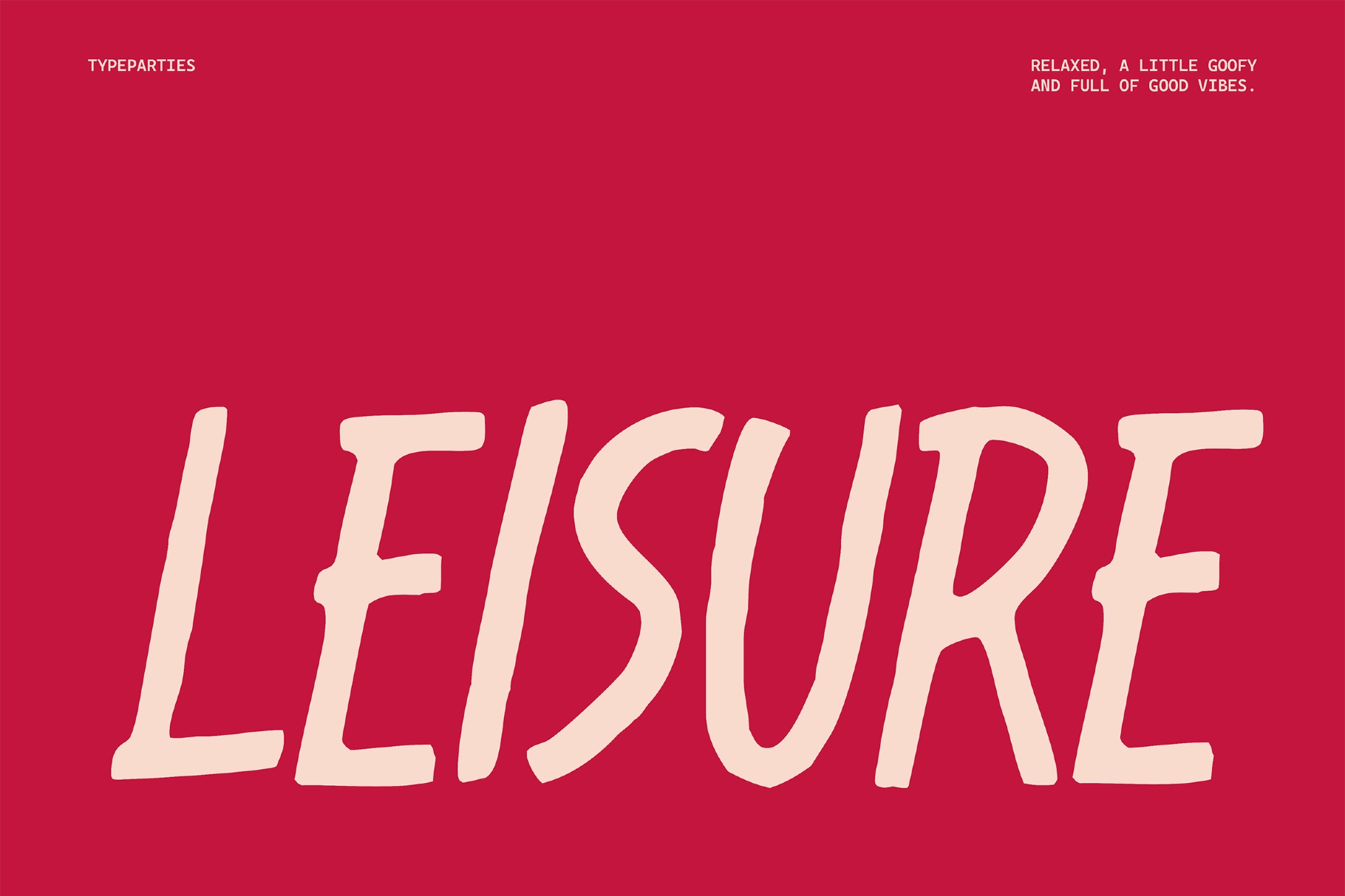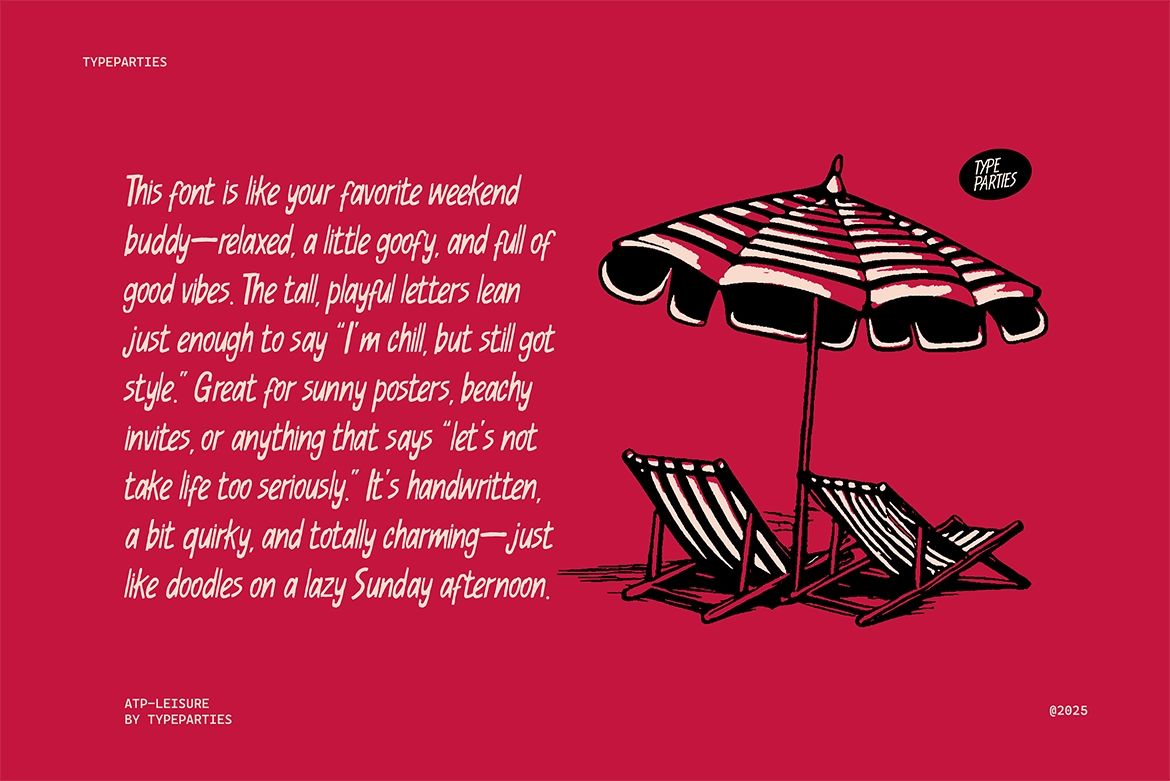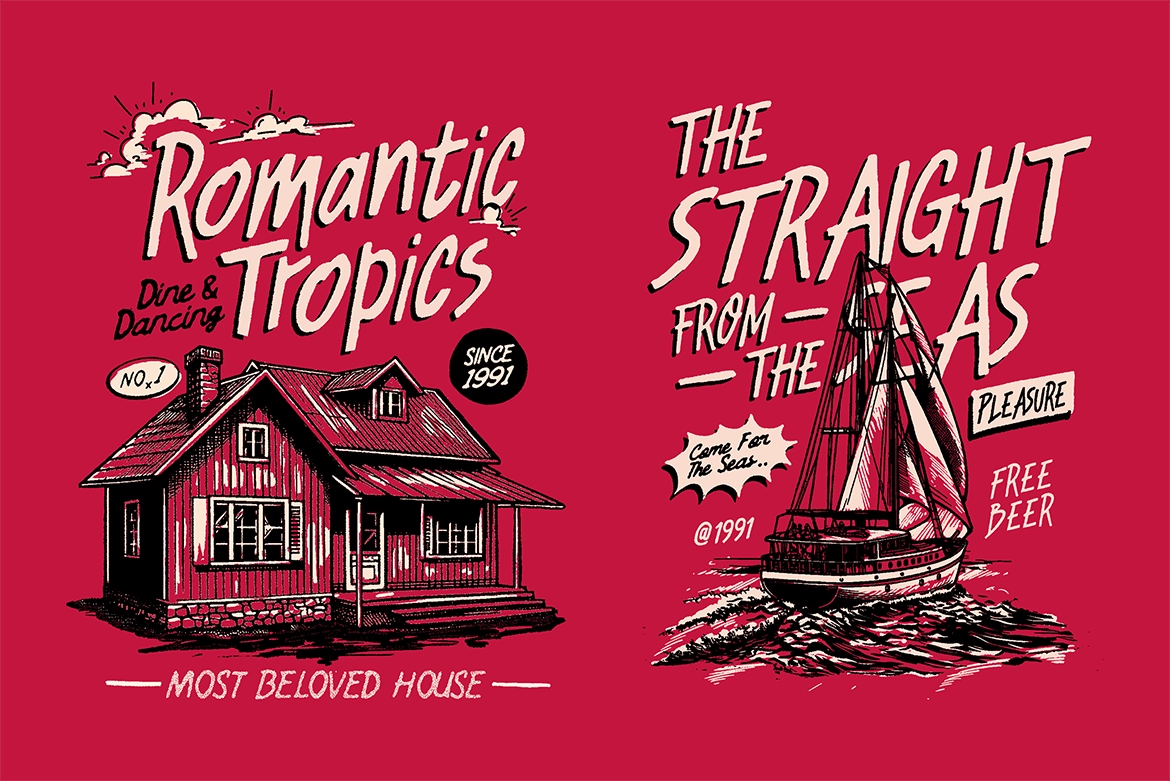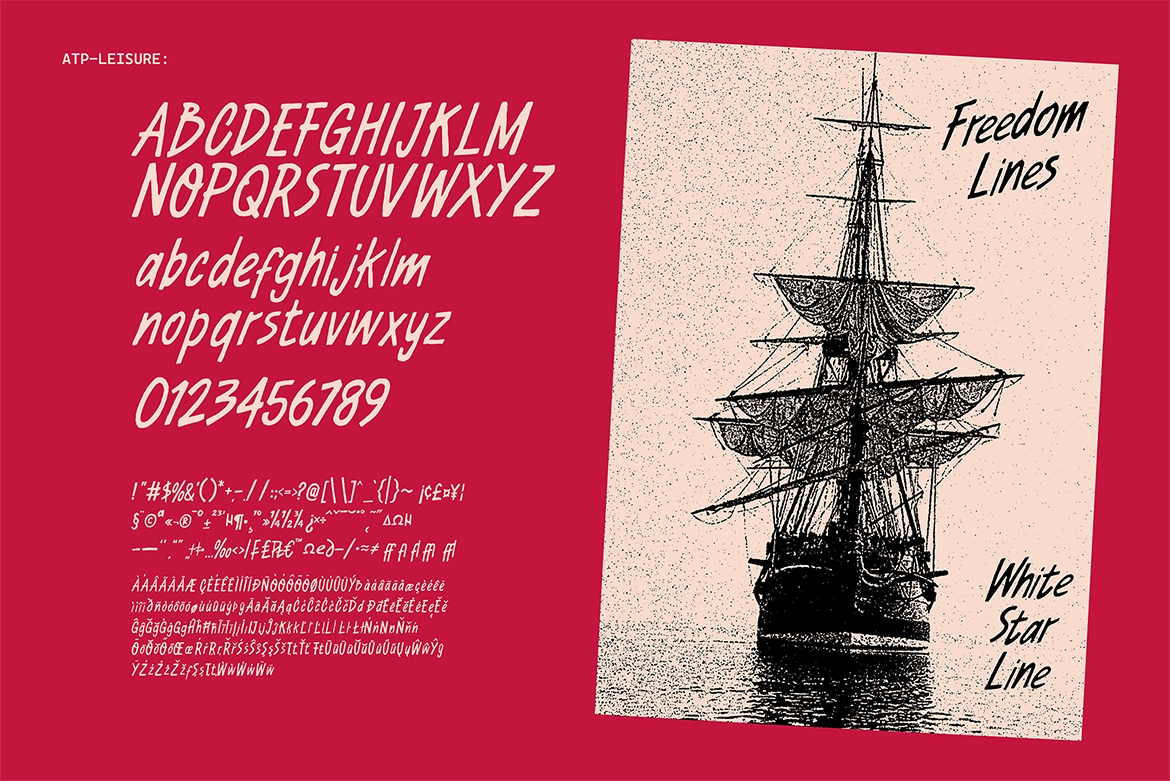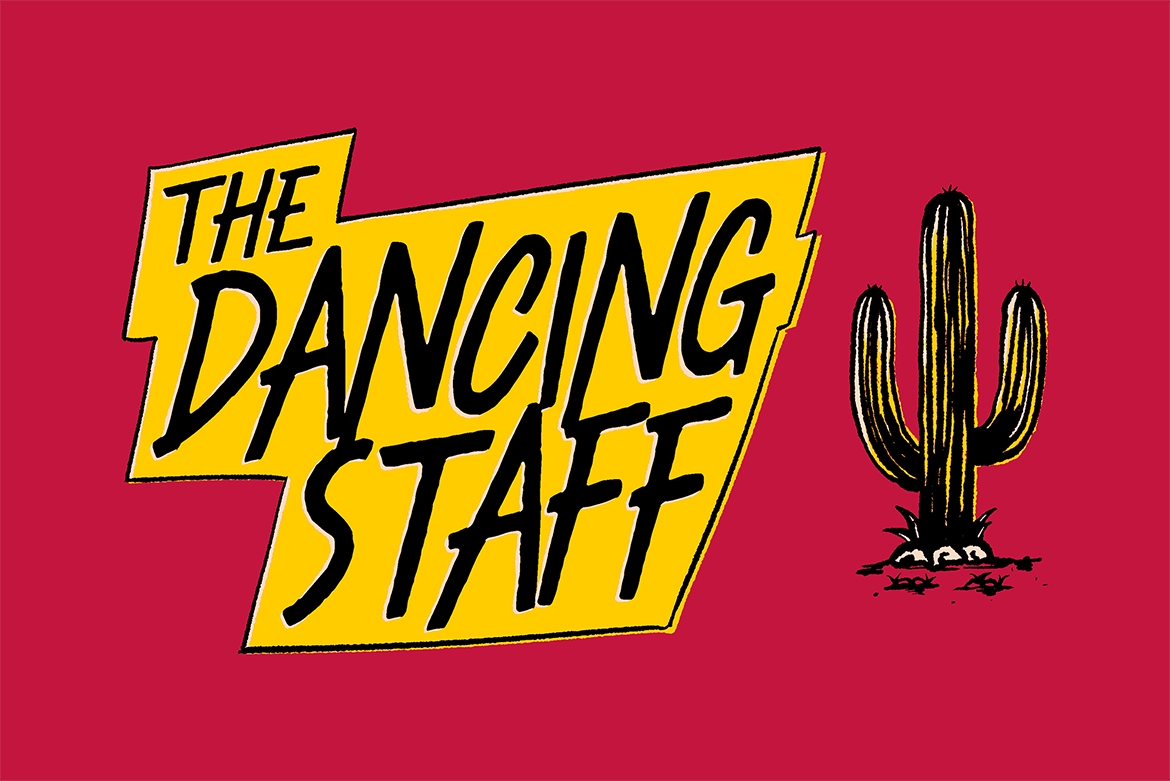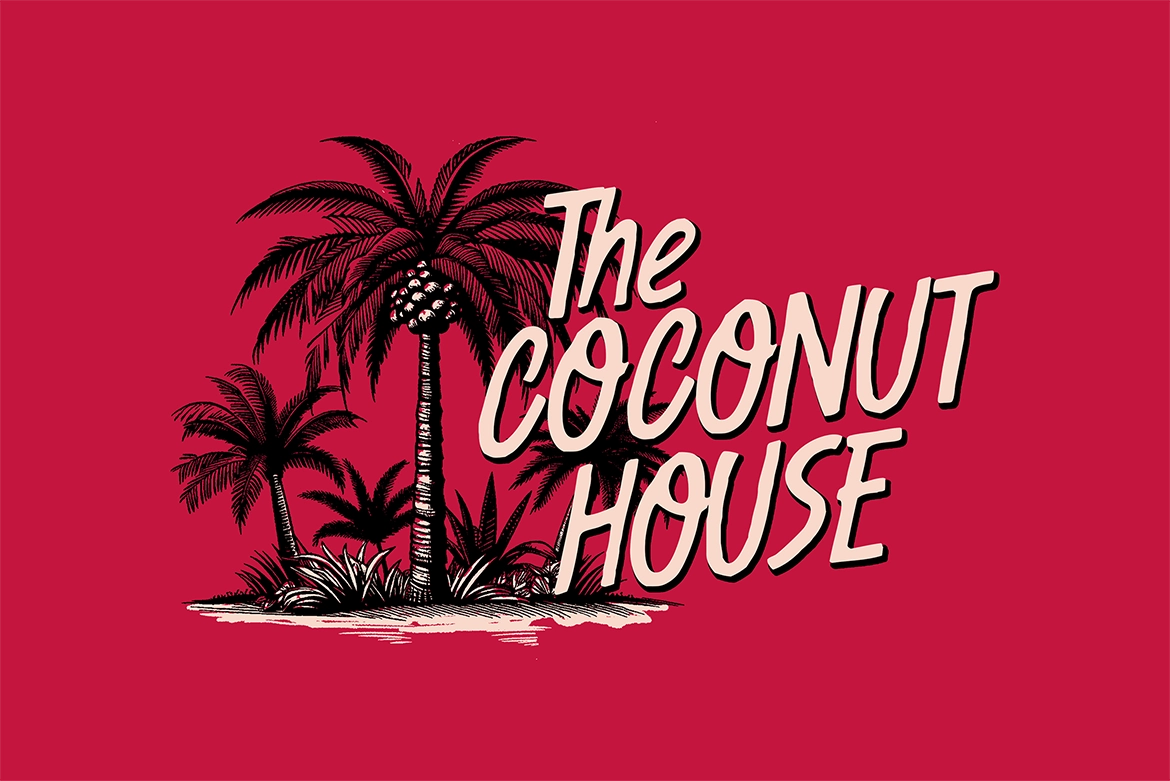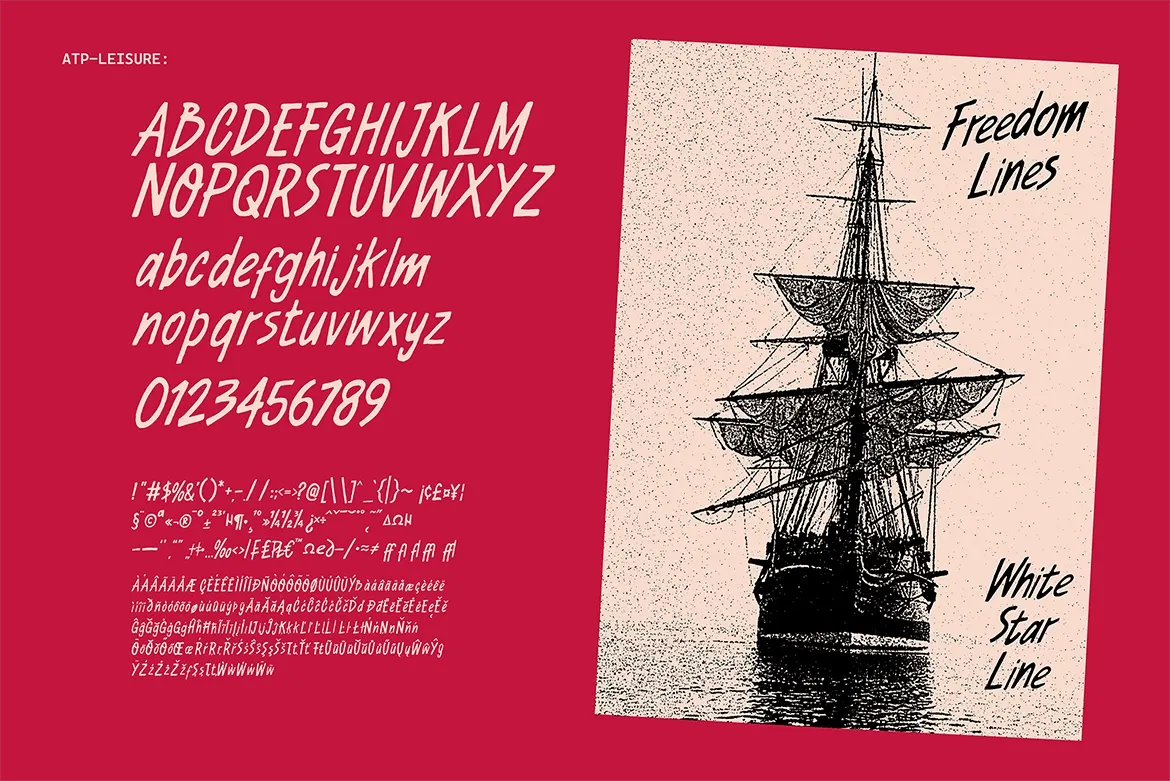
Leisure - Casual Handwritten Font
ATP-Leisure
Leisure - Casual Handwritten Font is a relaxed handwritten font that captures the carefree spirit of sunny days and slow weekends. With its tall, slightly leaning letterforms and playful rhythm, it feels spontaneous, friendly, and effortlessly stylish. The natural hand-drawn strokes give it a warm, approachable personality that instantly adds charm to any design.
Perfect for beach-themed posters, summer branding, invitations, packaging, social media graphics, and lifestyle projects, Leisure brings lighthearted energy without losing readability. It’s the kind of typeface that says “stay cool” while still making a strong visual impression.
- Casual handwritten style
- Tall, playful letterforms
- Uppercase & lowercase
- Natural hand-drawn feel